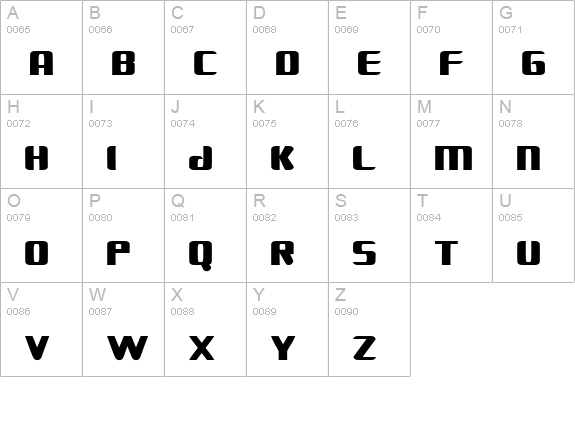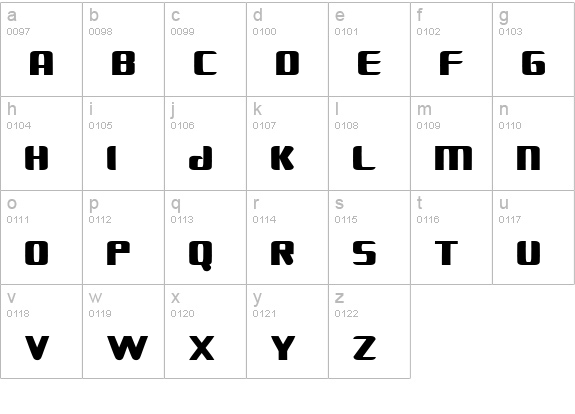
Introducing the captivating and awe-inspiring FANTASTIC FOUR MOVIE font! This remarkable typeface perfectly embodies the spirit of adventure, heroism, and superhuman strength that the Fantastic Four franchise is renowned for. Crafted with meticulous precision, this font boasts a unique blend of boldness and elegance, making it the ideal choice for any design project that seeks to convey power, excitement, and a touch of otherworldly grace. Its sleek and modern letterforms effortlessly command attention and exude an air of magnificence, perfectly capturing the essence of the iconic superhero team. What makes the FANTASTIC FOUR MOVIE font even more amazing is that it is freely available to download at FontsMarket.com. Yes, you read that right – absolutely free! Gone are the days of searching high and low for the perfect font, only to be disappointed by hidden costs or limited access. Now, you can unleash your creativity and bring your designs to life with this incredible font, without spending a dime. Whether you're a professional designer, a dedicated fan of the Fantastic Four, or simply someone who appreciates the power of a well-crafted font, the FANTASTIC FOUR MOVIE font is sure to surpass your expectations. Its versatility and captivating presence will elevate your projects to new heights, leaving a lasting impression on anyone who beholds its magnificence. So, what are you waiting for? Head over to FontsMarket.com and download the FANTASTIC FOUR MOVIE font today. Unleash your inner superhero and let your designs soar to extraordinary levels of greatness, all with the help of this incredible font that's free for all to enjoy.